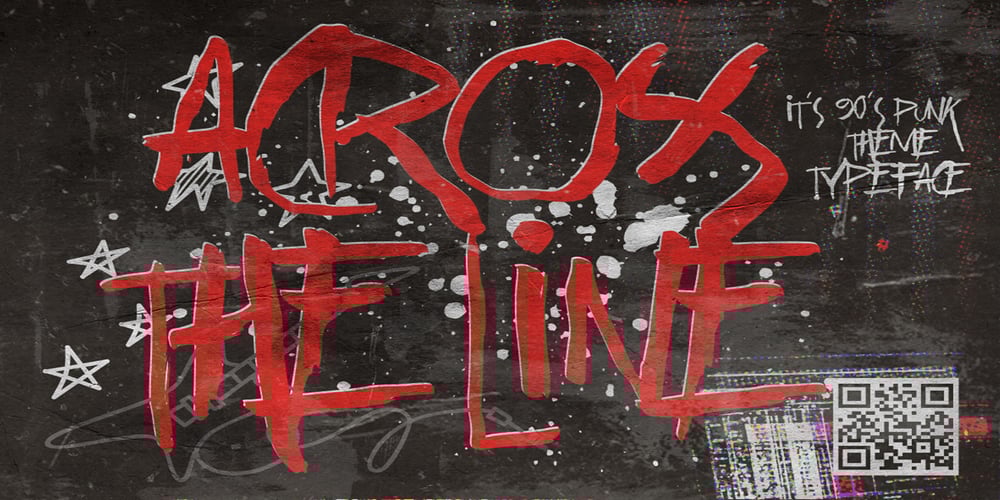
Across the lines
Across the lines font
Across the lines Font Family was designed by Abdul Malik Wisnu, Anang Fibriyanto and published by Gassstype. Across the lines contains 1 styles and family package options. Hello Everyone, introduce our new product Across The Line is Modern Display Typeface with a natural feel. This handmade font will make your design has a beautiful natural touch for each details.